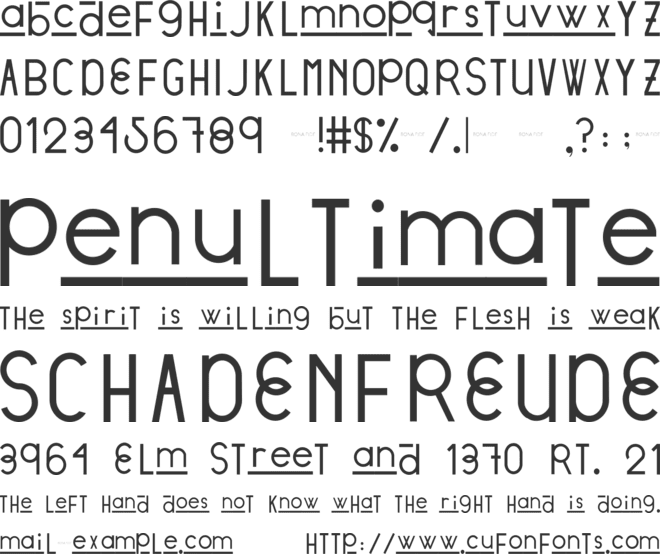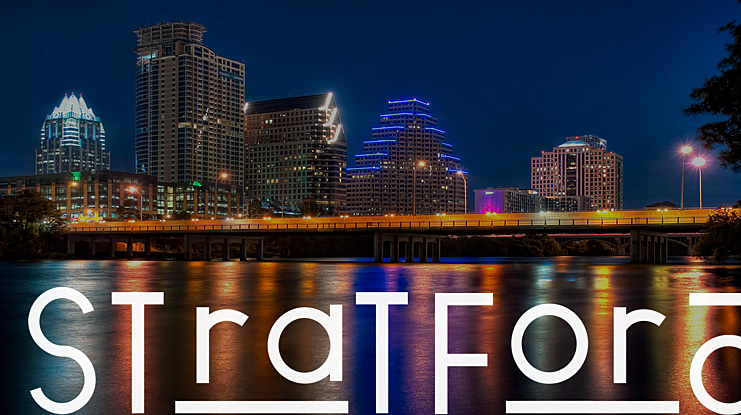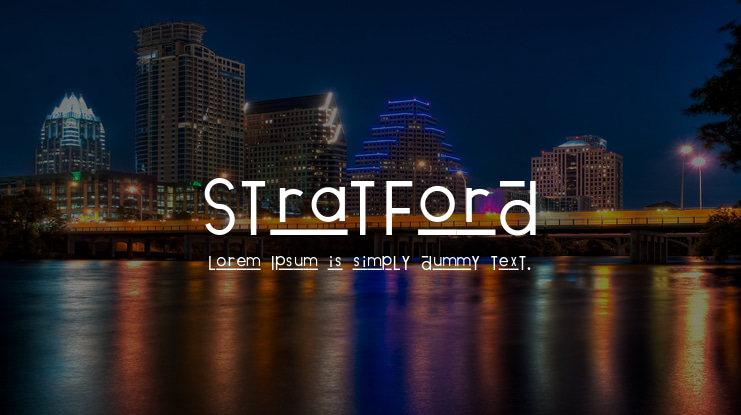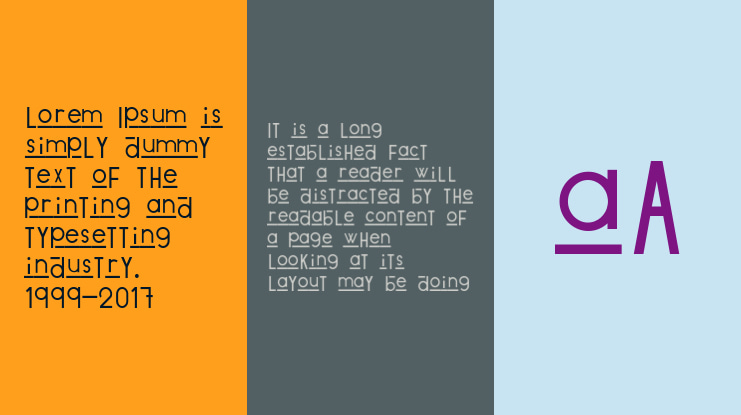
Stratford Font
The objective of Stratford Sans was to pull from both ends of the spectrum through combining vintage + modern typographic elements to create a font that would seamlessly amalgamate itself into the story of your designs.
Design Process
The initial design process pulled from finding a voice for the city of Stratford, Ontario. The city has a strong scene of traditional arts + culture and is focused on adding digital culture + flair to the mix. The city is expressive, traditional, and unexpected. Therefore, elements tipping a hat to traditional British letterforms and the fluid combination of grotesque era ovals and unforeseen hints of geometric characters are what truly send Stratford Sans into a realm of its own.
The initial design decision was that Stratford Sans would, in fact, be a sans serif font. This is to pull away from its branding of traditional arts and giving it the opportunity to newly define itself, whilst still allowing the magic that is its history, to seep through its characters. Interlacing two conflicting themes gives you the ability to craft a harmony between the two: to pull the exciting and non-negotiable defining elements of each - and defining a new sensation.